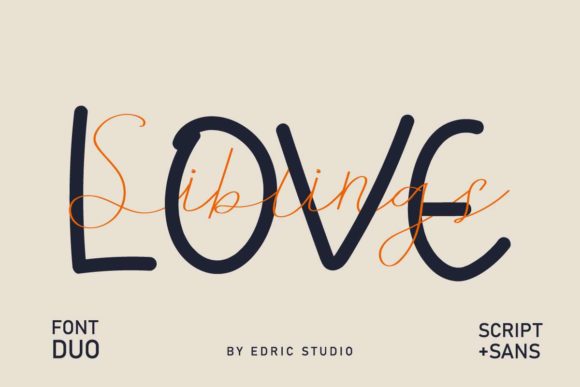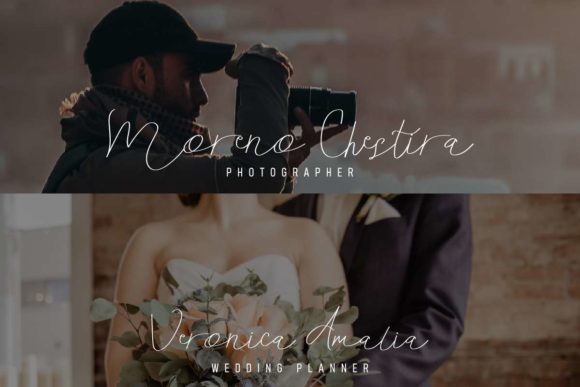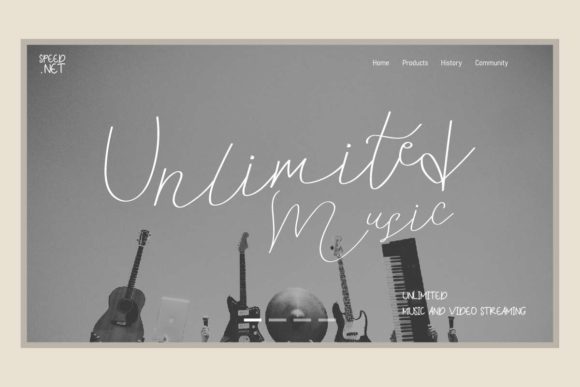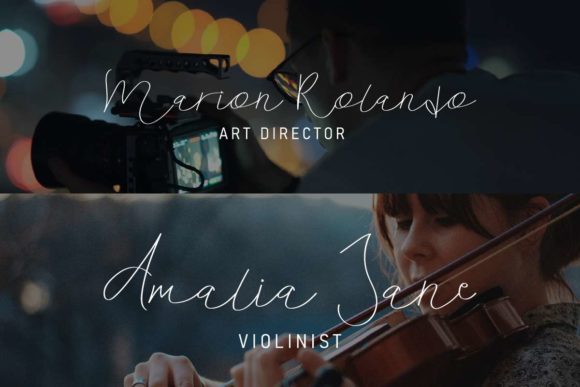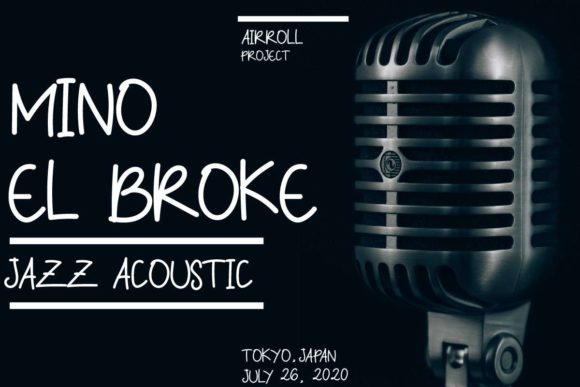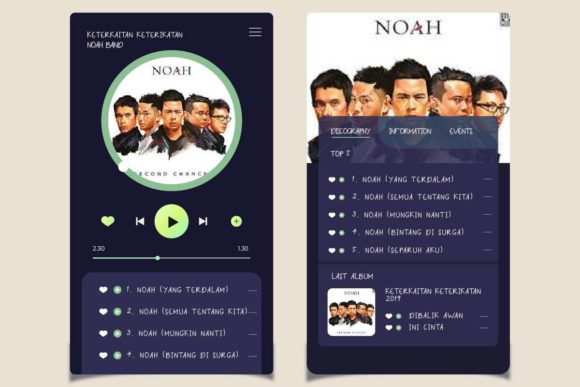
Introduction to Siblings Love Font
Remember that moment when you finally found the perfect font to elevate your design project? The one that made your creative vision come alive, and you couldn’t wait to share it with the world? For designers, discovering a high-quality font can be a game-changer. It’s like finding a missing piece of a puzzle that completes the entire picture.
That’s exactly what you’ll experience with the Siblings Love Font, a stunning sans-serif and script duo that’s about to become your new go-to design resource. With its incredible versatility, this font is perfect for a wide range of designs, from elegant wedding invitations to bold and playful branding materials. Whether you’re working on a free download project or a paid creative endeavor, the Siblings Love Font is sure to bring your ideas to life.
What makes this font so valuable for designers is its ability to adapt to any design style, from minimalist to elaborate. Its transparent background and clean lines make it a great choice for designs that require a touch of sophistication and elegance. And the best part? It’s available for download, making it an accessible resource for designers of all levels.
Key Features of Siblings Love Font
- High-quality design: The Siblings Love Font is a beautifully crafted font, perfect for any creative project that requires a unique and touching touch.
- Unique characteristics: The Siblings Love Font features a unique, handwritten style that is perfect for adding a personal touch to any design project.
- Perfect for family-related projects: The font’s name and design make it an excellent choice for projects related to siblings, family, and love.
As a designer, I’m always on the lookout for high-quality design resources that can elevate my creative projects. Recently, I stumbled upon the Siblings Love Font, and I’m excited to share my honest review with you.
What works well about this font is its playful and whimsical feel, making it perfect for projects that require a touch of warmth and personality. The font is available for free download, which is a huge plus in my book. I appreciate the transparent background, which allows for easy customization and manipulation in various design tools.
- ✨ Playful and whimsical feel
- ✨ Great for creative projects like children’s books, party invitations, and more
One limitation of this font is that it’s not as versatile as some other fonts I’ve worked with. The letterforms can be a bit inconsistent in terms of shape and size, which may require some extra tweaking in design software.
Overall, I think the Siblings Love Font is a great addition to any designer’s toolkit. While it may have some limitations, its unique personality and free availability make it a great choice for creative projects that require a touch of warmth and whimsy.
Siblings Love Font
To get the most out of the Siblings Love Font, use it on a transparent background to give your designs a clean and modern look.
The Siblings Love Font is perfect for various use cases, such as:
- Family-themed projects, such as invitations or posters.
- Children’s book illustrations or design.
- Personalized gifts or decorations.